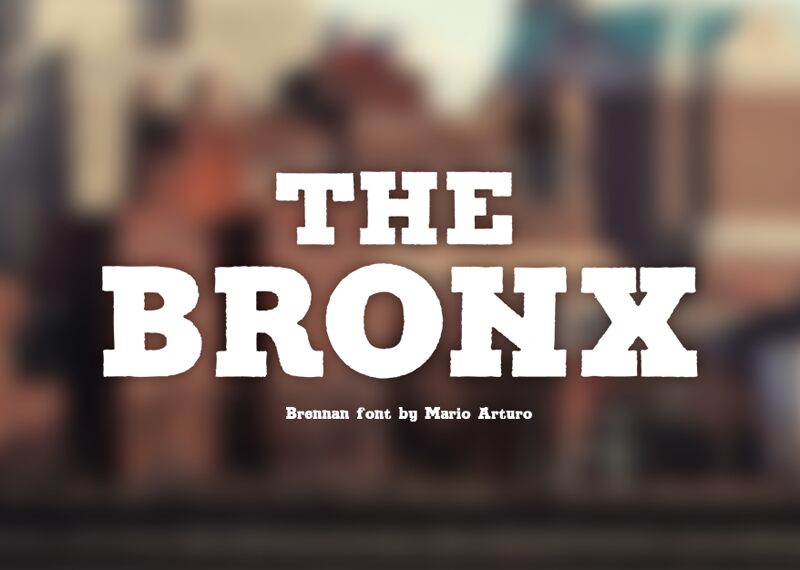
Brennan is a free slab serif display font with massive, tightly packed letters and blunt rectangular serifs. Slightly uneven edges and shifting stroke widths keep its weight from feeling mechanically precise, recalling rough-cut poster type.
Food, sports, and music themes suit its sturdy handmade shapes. It is especially convincing on burger packaging and pub signage, with concert posters and casual merchandise offering another home for its dense, emphatic lettering.
The font is based on an early-20th-century Russian alphabet. The creator initially auto-traced a few letters to spell BRONX and later created the complete alphabet. The uppercase letters are original; the lowercase letters and punctuation were taken from two other vintage type sources.
Brennan
Mario Arturo
This font is inspired from an early 20th century Russian alphabet. I auto-traced just a few letters to spell BRONX to make a t-shirt for my friend JJ who lives there. I got carried away and created the whole alphabet.